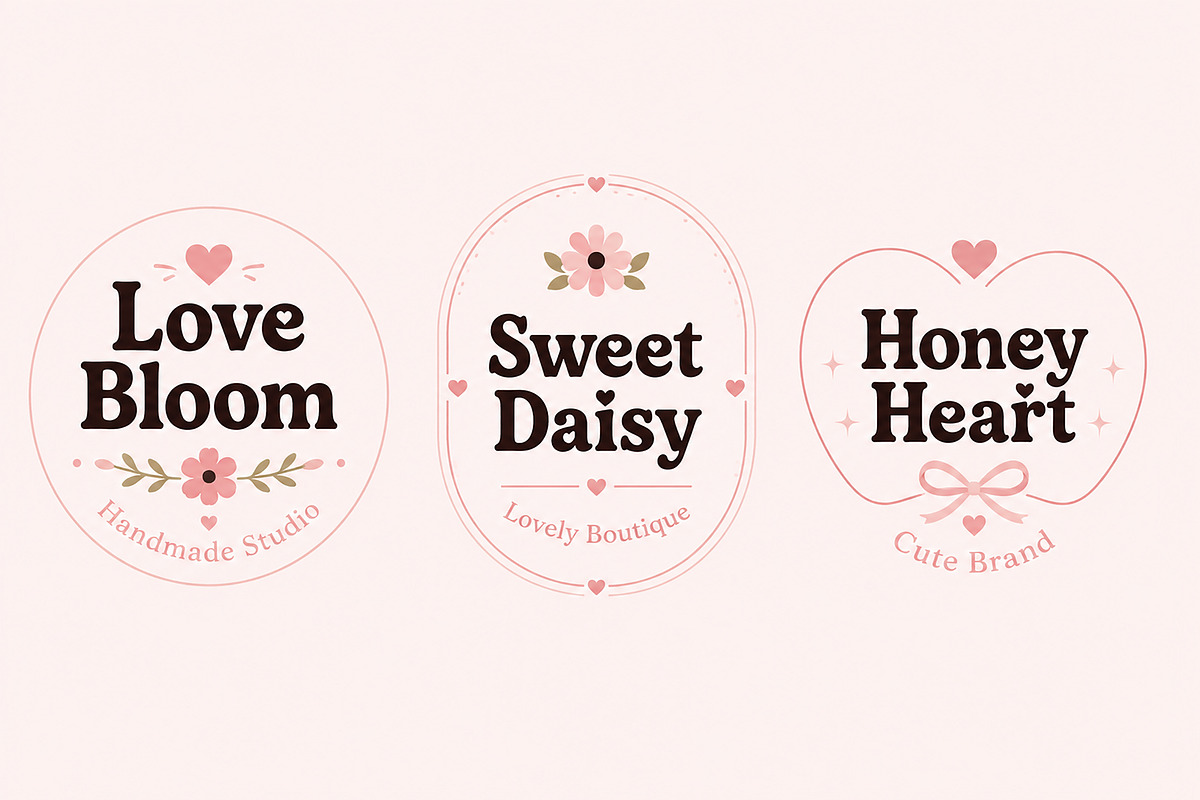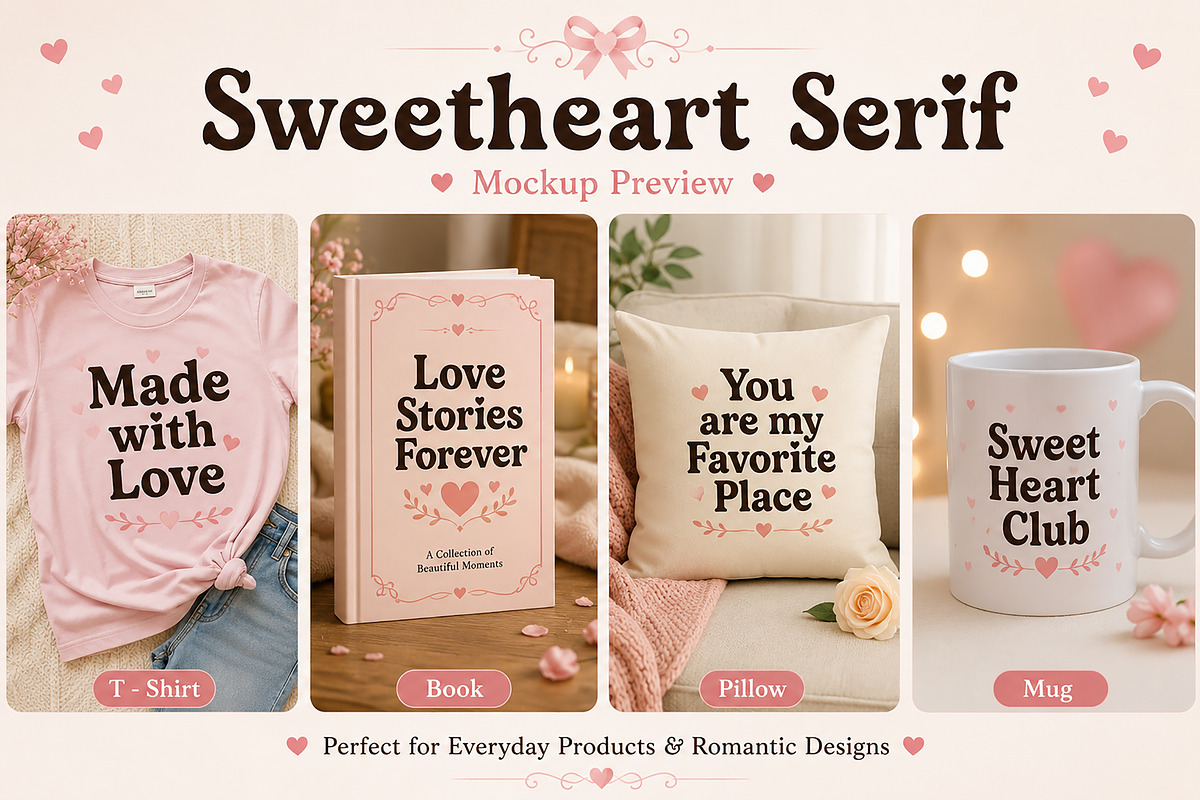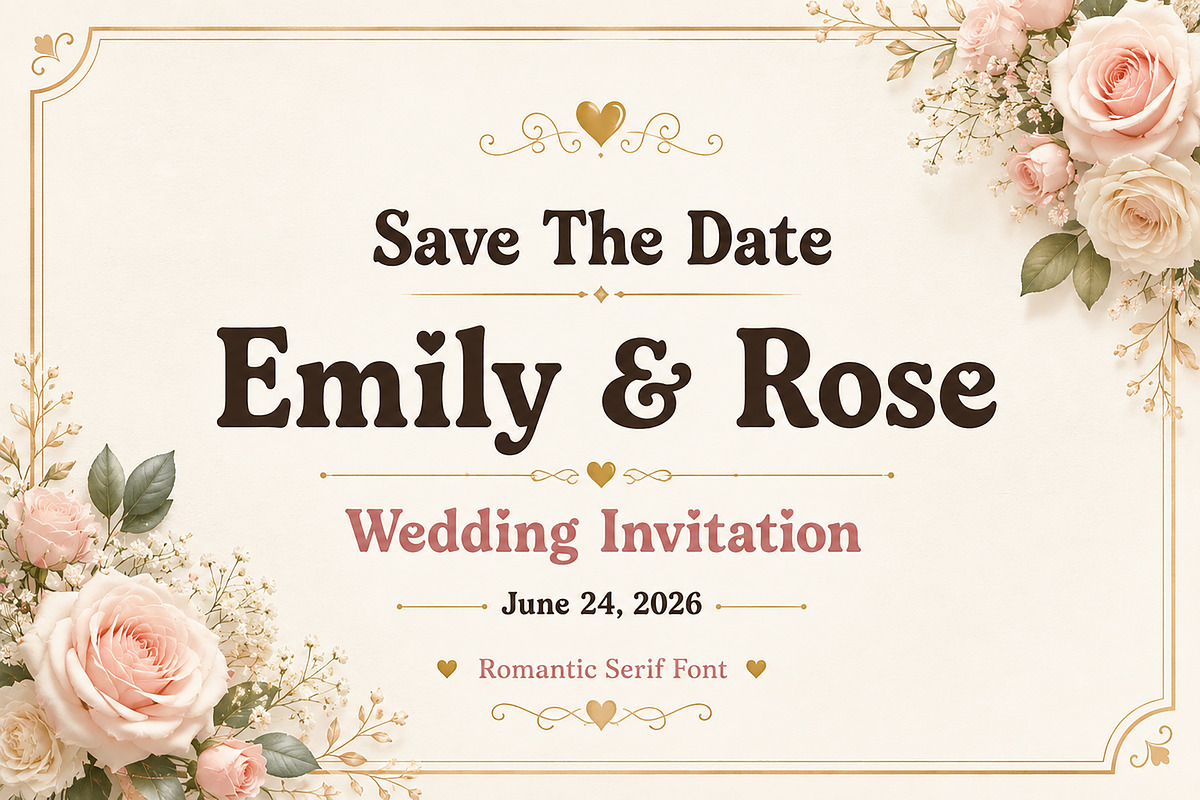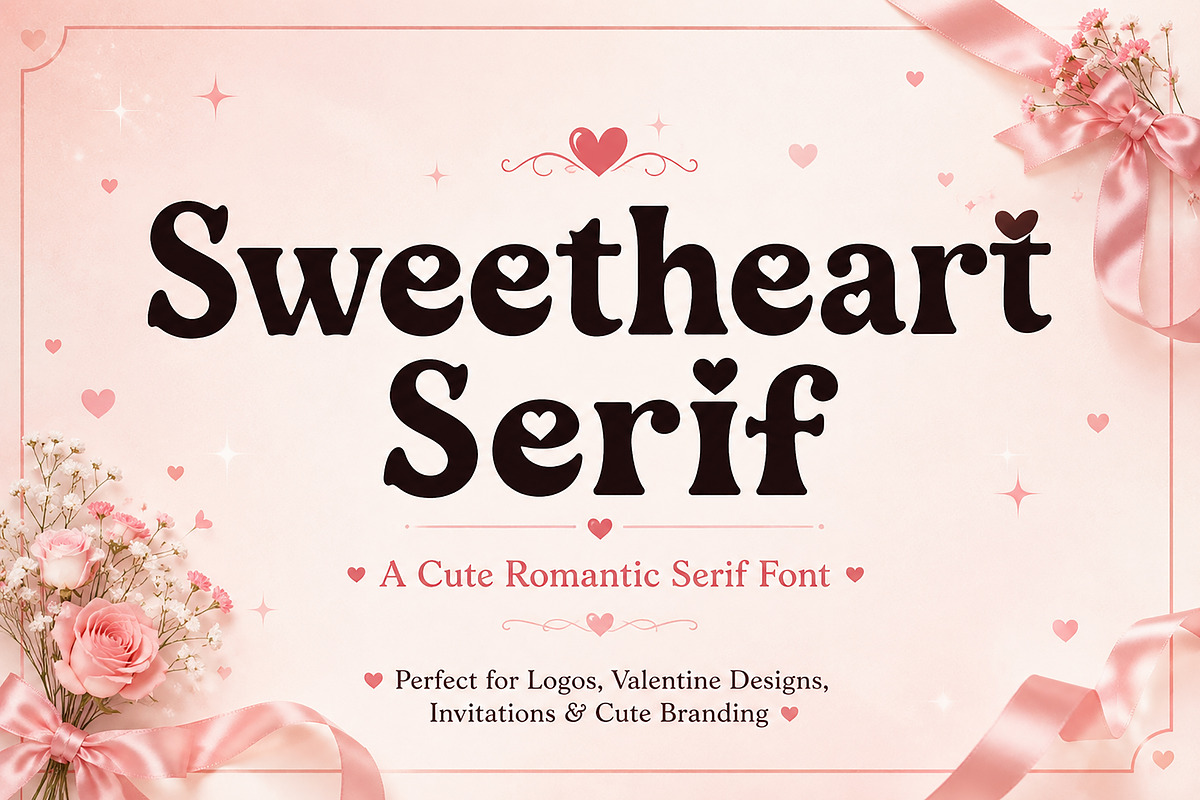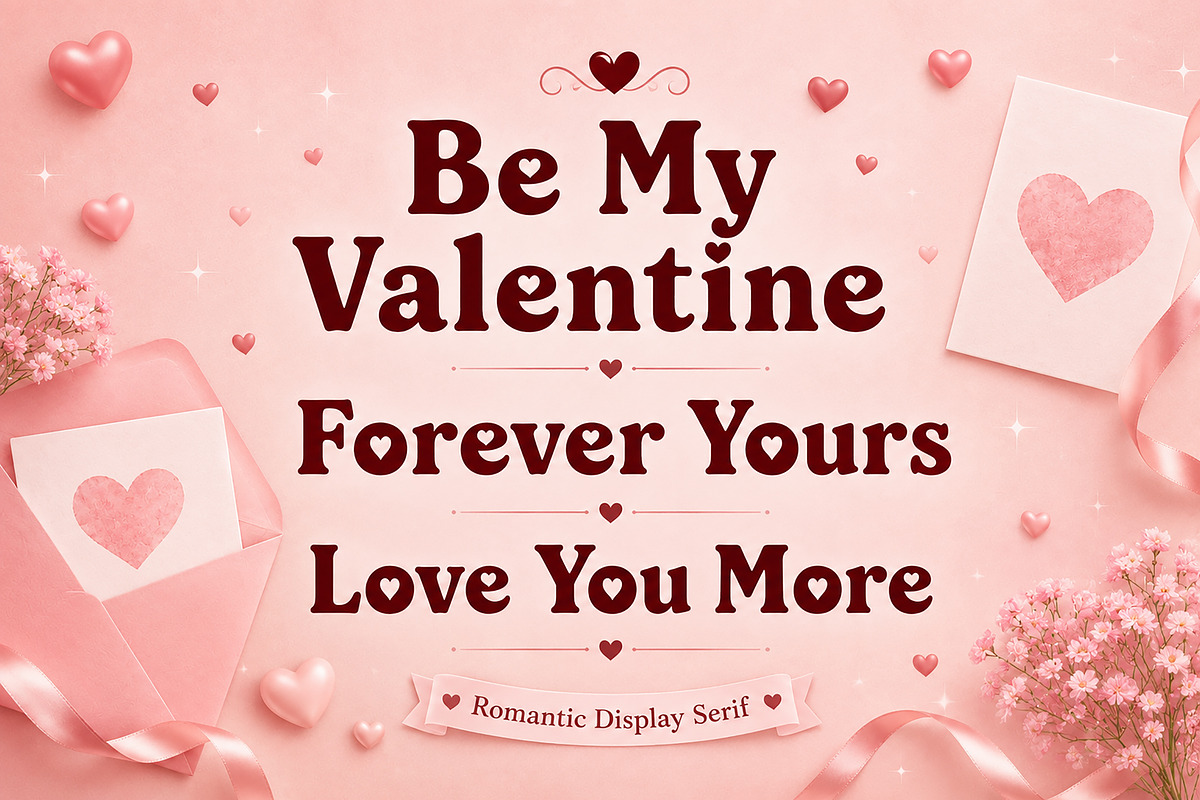
Sweetheart Serif
Sweetheart Serif is a charming and romantic display serif font designed to bring warmth, elegance, and personality to your creative projects. Featuring soft curves, playful heart-shaped details, and a unique handcrafted feel, this font is perfect for creating memorable designs with a lovely and feminine touch.
Whether you're designing wedding invitations, Valentine's Day cards, beauty branding, boutique logos, product packaging, social media graphics, greeting cards, or printable designs, Sweetheart Serif adds a sweet and sophisticated look that instantly stands out.
Its decorative serif style makes every word feel special while remaining clear, stylish, and easy to read. From modern branding to romantic stationery, this font is a versatile choice for designers, crafters, and creative entrepreneurs.
Wedding Invitations
Bridal Shower Designs
Valentine's Day Projects
Boutique Branding
Beauty & Cosmetic Packaging
Candle Labels
Perfume Branding
Bakery & Dessert Branding
Greeting Cards
Gift Packaging
Posters & Flyers
Stickers
T-Shirts
Mugs
Pillows
Cricut & Silhouette Projects
Digital & Printable Designs
Unique Decorative Serif Style
Romantic & Feminine Design
Heart-Inspired Letter Details
Elegant Display Font
Uppercase & Lowercase Letters